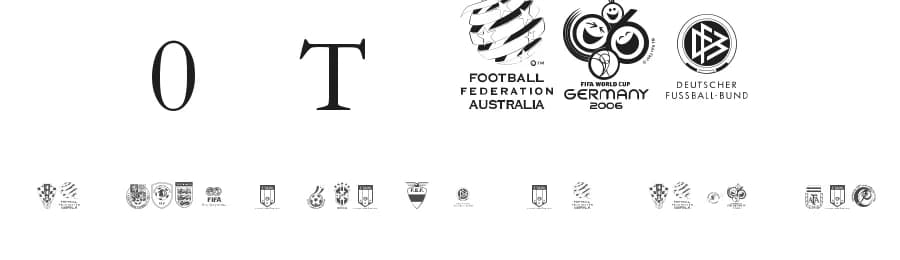
About 2006 Team Font
2006 Team is a dingbat font designed by ArFonts. It includes 653 glyphs, a regular weight, TTF (TrueType) format, and 200 languages. 2006 Team is free to download; check the license details on this page before commercial use. Dingbat fonts like 2006 Team work best for icons, ornaments, bullet points, and decorative accents.
2006 Team Font is a versatile dingbats font that works for both headings and body text. Pair it with a contrasting sans-serif or serif font to add visual interest and a clear distinction between titles and body copy.
2006 Team Font
by ArFonts
2006 Team Font is a dingbats typeface by ArFonts, ideal for logos, invitations, branding, and creative projects.